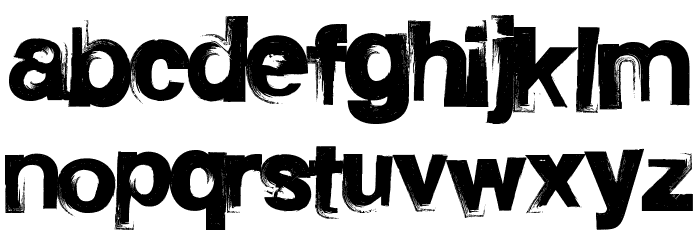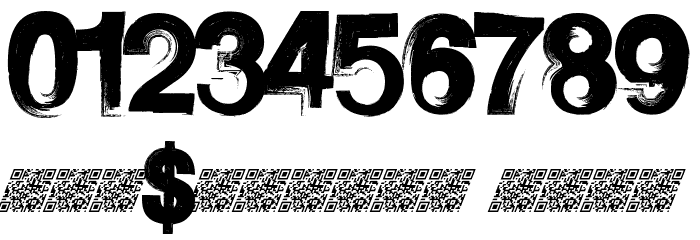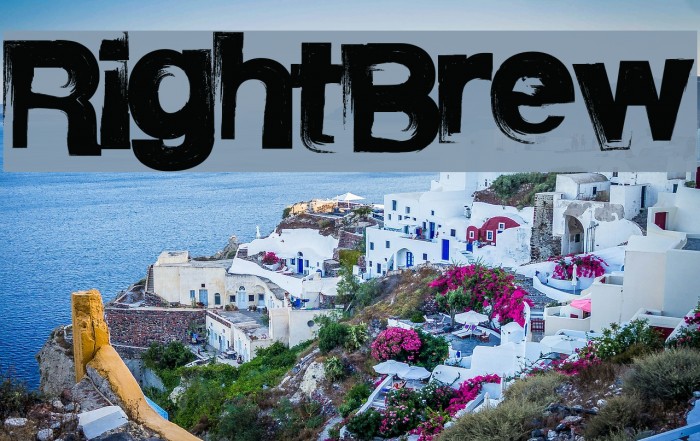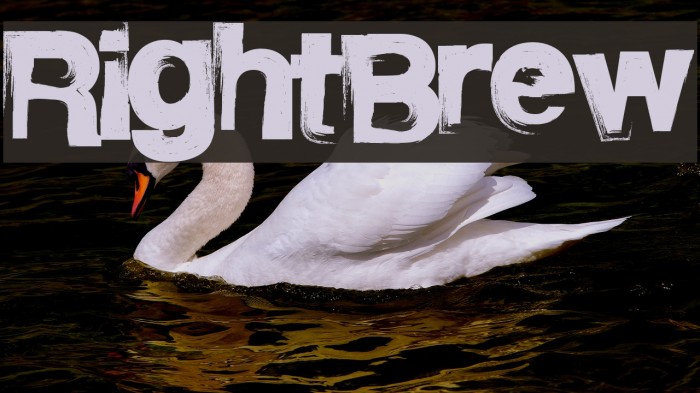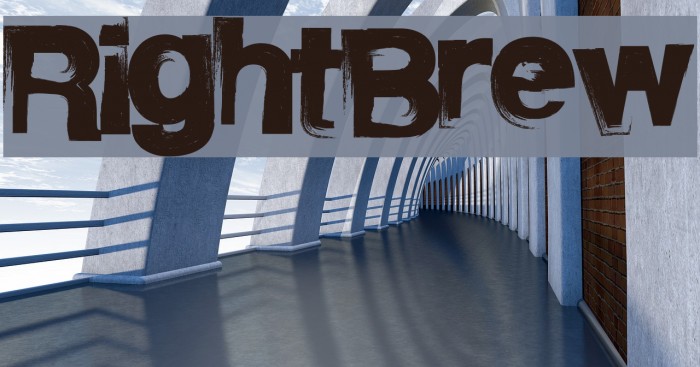
RightBrew Font
This font exhibits a bold and distressed style, characterized by its rough, textured edges that give it a grunge or urban feel. The uppercase and lowercase letters maintain a consistent weight, providing a strong visual impact. The numerals and special characters follow the same distressed aesthetic, ensuring a cohesive look across all glyphs. The font's design is ideal for projects that require a bold statement or a rugged, edgy appearance. Its unique texture adds depth and character, making it suitable for creative and artistic applications.
A bold, distressed font with a grunge aesthetic and textured edges.
- Proposed Projects: Ideal for posters, album covers, streetwear branding, and urban-themed designs.
- Overall Style: Grunge, Urban